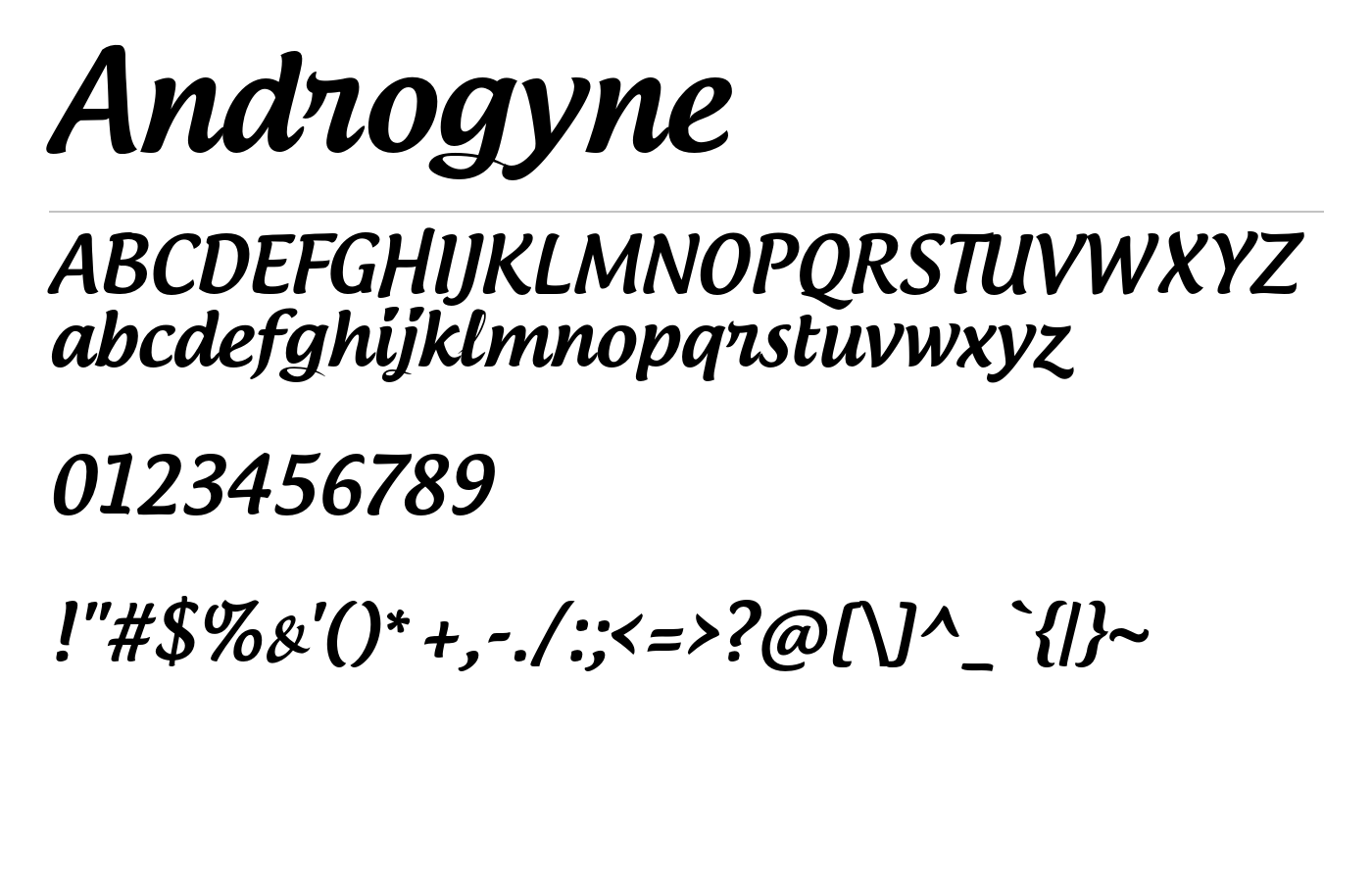
Androgyne is an elegant serif typeface with a classic, slightly calligraphic feel, featuring medium contrast and smooth, flowing strokes. Its upright italics with distinctive letterforms and moderate x-height give it a refined yet approachable personality, ideal for editorial headings, branding, and sophisticated design projects that seek a timeless yet inviting appearance. This font works well where a blend of tradition and subtle style is desired, such as fashion magazines, luxury packaging, and logos.
Androgyne Font
About Androgyne Font